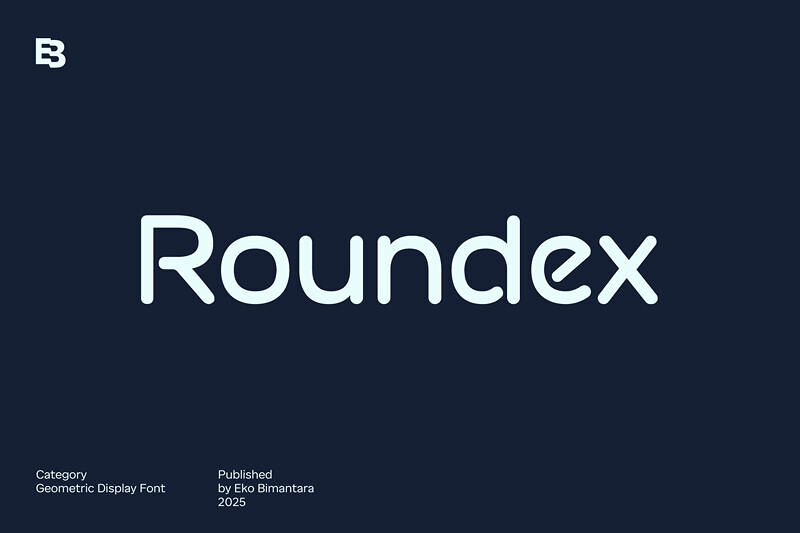
Roundex Font
Crafted by Eko Bimantara, Roundex is a modern geometric display font with smooth, rounded edges and clean curves that radiate friendliness and minimalism.
Designed for clarity and versatility, it blends futuristic aesthetics with approachable warmth. Perfect for logos, tech brands, posters, and user interfaces, Roundex ensures strong visual impact while maintaining readability.
Designed by: Eko Bimantara